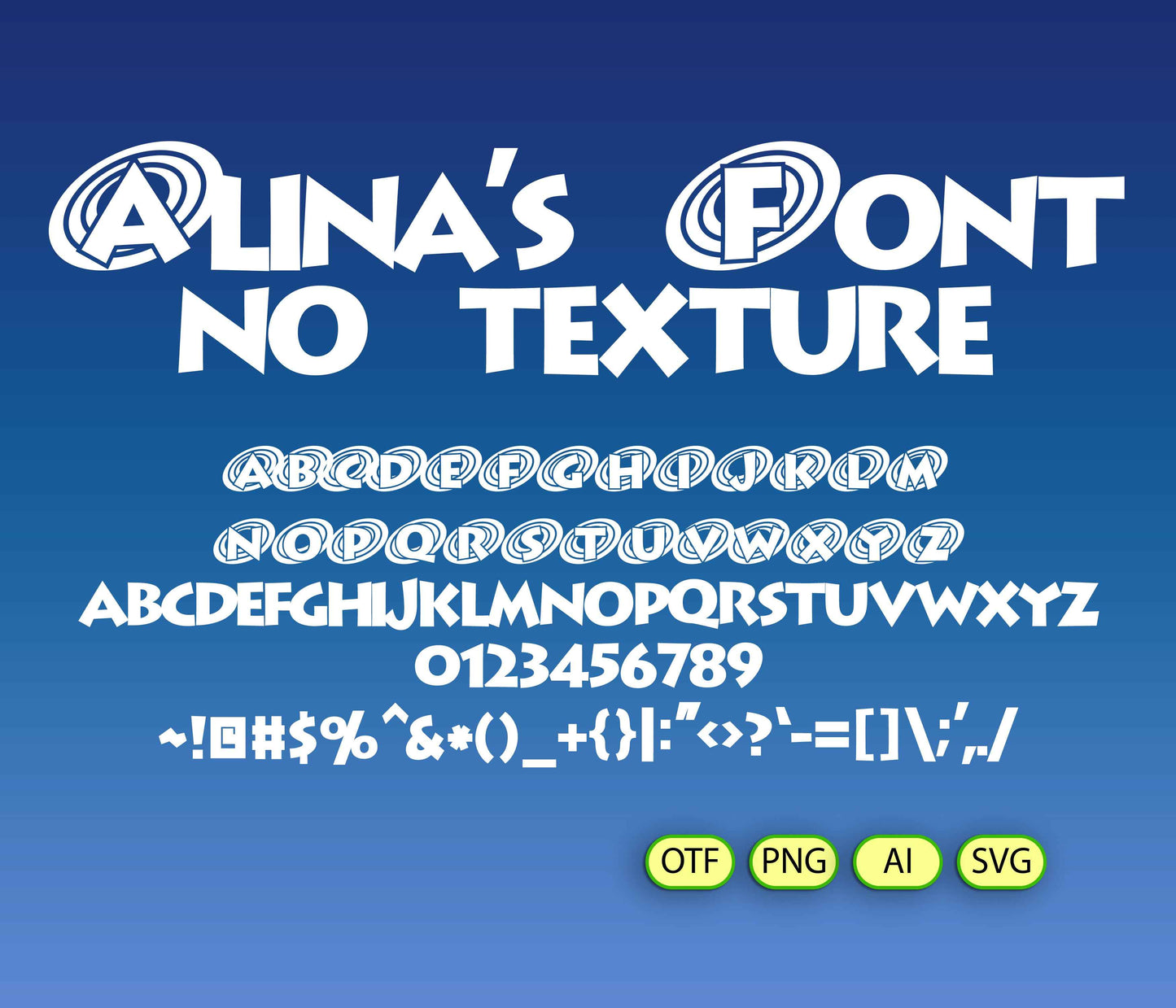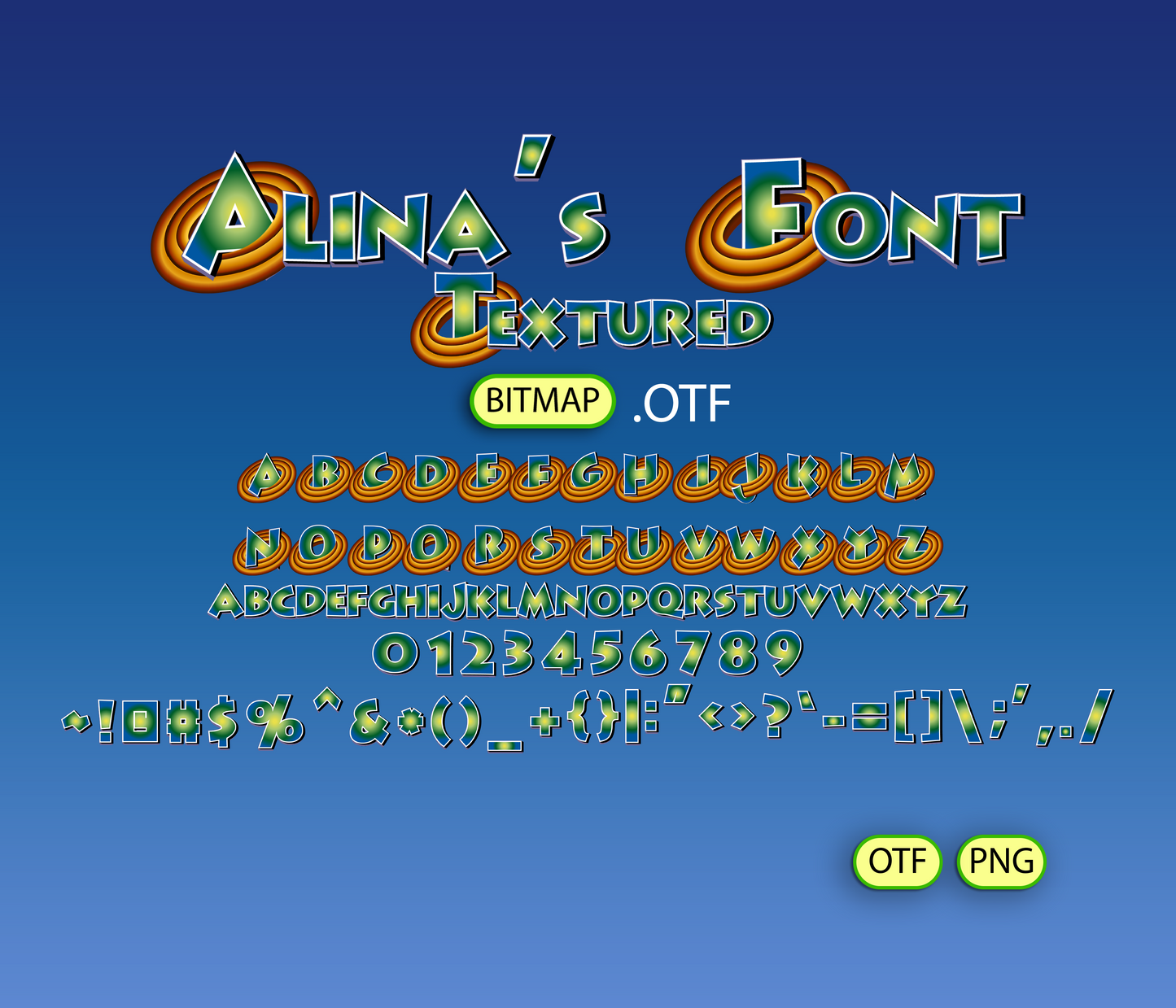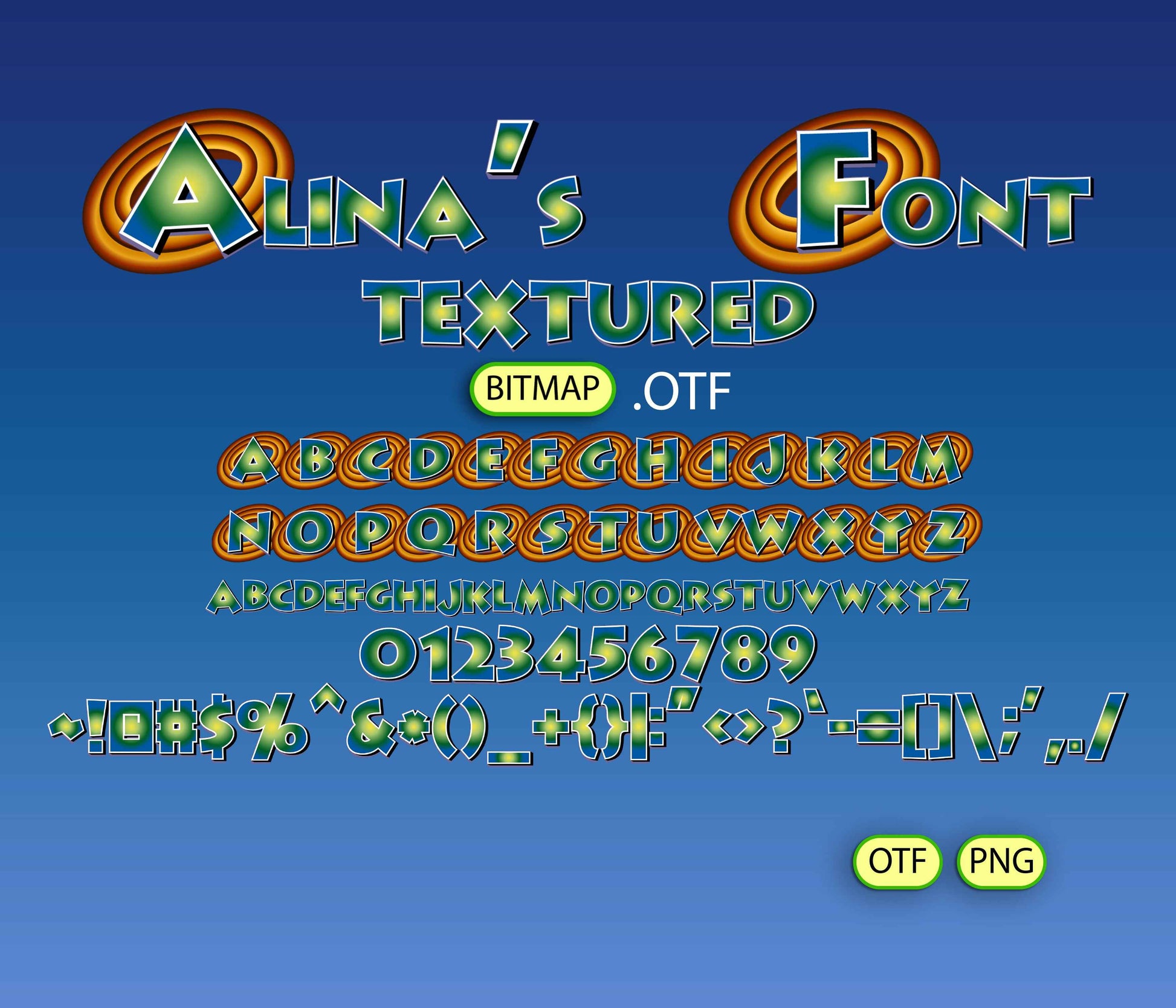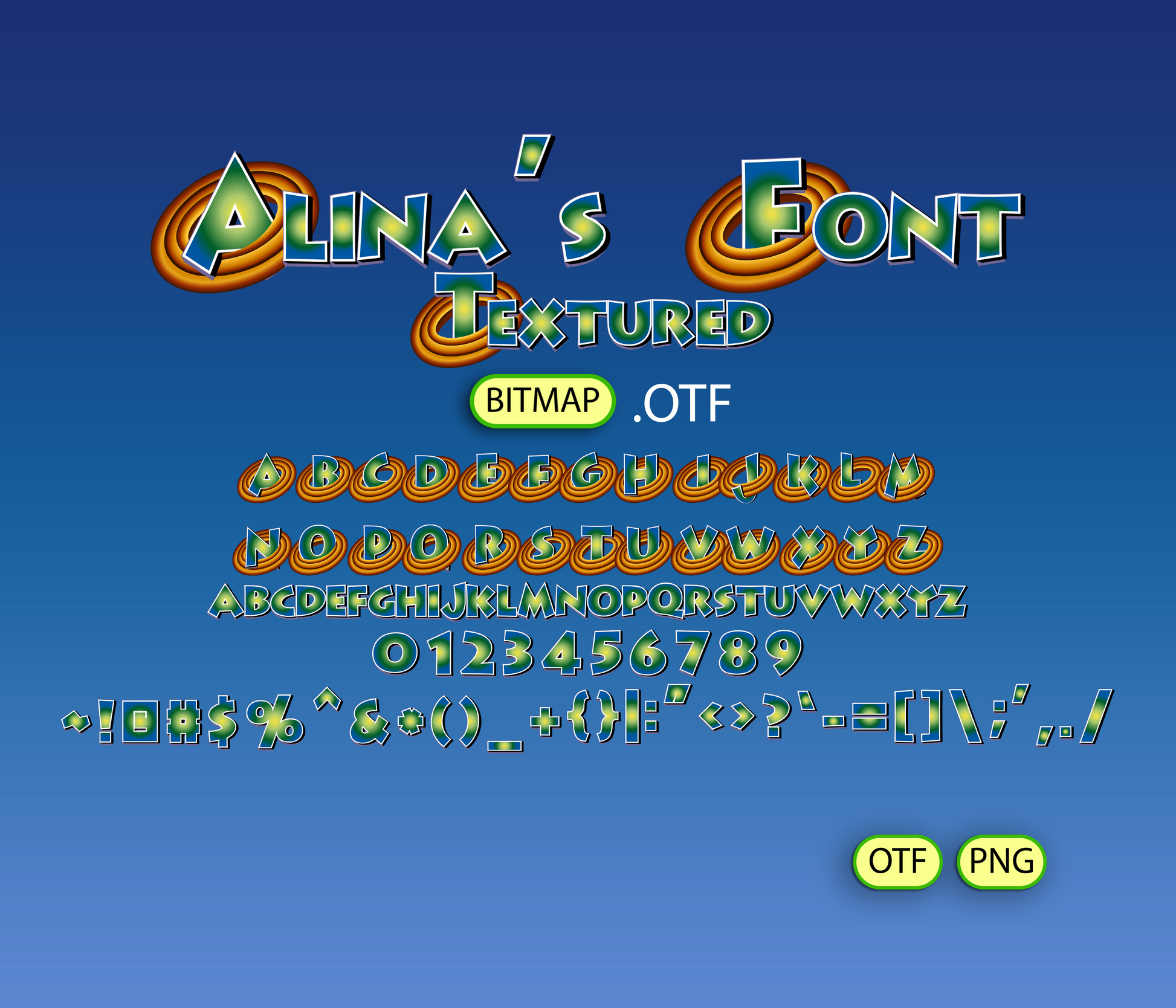
Cosmic Slam Font Textured
Blast off into a world where basketball meets the cosmos with our Cosmic Slam font, a dynamic and playful typeface inspired by the legendary crossover of animated characters and basketball superstars. This font captures the high-energy excitement and futuristic vibe of the intergalactic basketball universe, making it perfect for fans, designers, and anyone looking to add a touch of cosmic fun to their projects. Whether you're creating content related to the movies, designing merchandise that celebrates this iconic blend of sports and animation, or simply aiming to infuse your work with the spirit of teamwork and adventure, the Cosmic Slam font lets you channel the unique blend of competition and camaraderie.
Optimized for Canva, the Cosmic Slam font ensures that users of all design levels can effortlessly integrate the thrill of the game and the allure of space into their digital designs. This font is a versatile choice for anyone looking to convey messages with the energy, boldness, and playful edge that define Cosmic Slam, making your projects stand out with style and creativity, from digital banners to printed memorabilia.
Understanding the diverse needs of our community, we've included a FREE no-texture version of the Cosmic Slam font, guaranteeing compatibility across all software and making it a flexible option for a broad range of design needs. This adaptability ensures that the Cosmic Slam font can enhance your designs with its vibrant and engaging style, regardless of the medium.
Featuring a comprehensive character set and a user-friendly design, the Cosmic Slam font is accessible to all, inviting users to explore and celebrate the magic of this beloved franchise. Whether you're commemorating favorite moments, promoting a themed event, or simply spreading the joy and excitement of Cosmic Slam, our font, complete with its no-texture variant, enriches your creations with the spirit of one of the most imaginative crossovers in film and sports history.